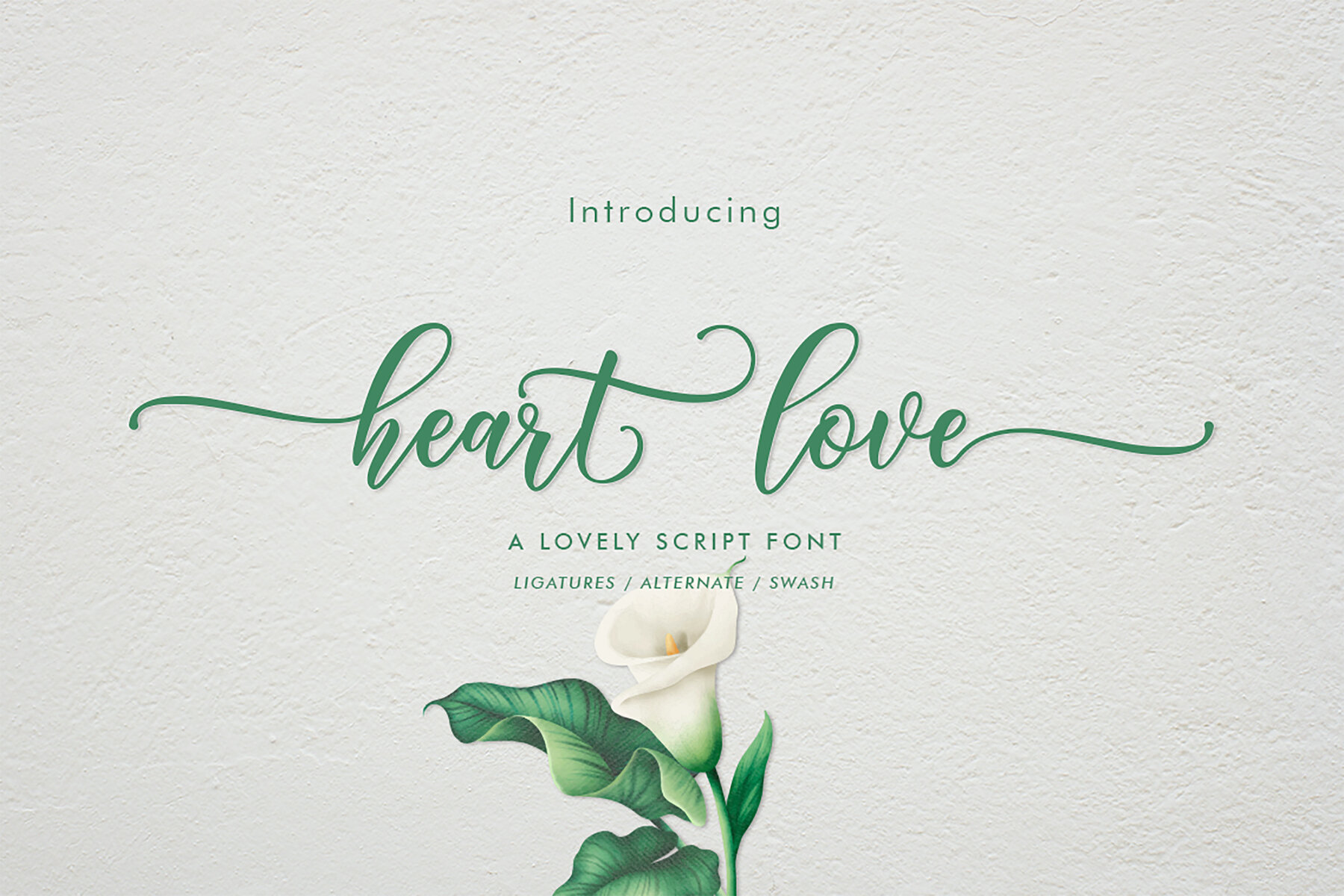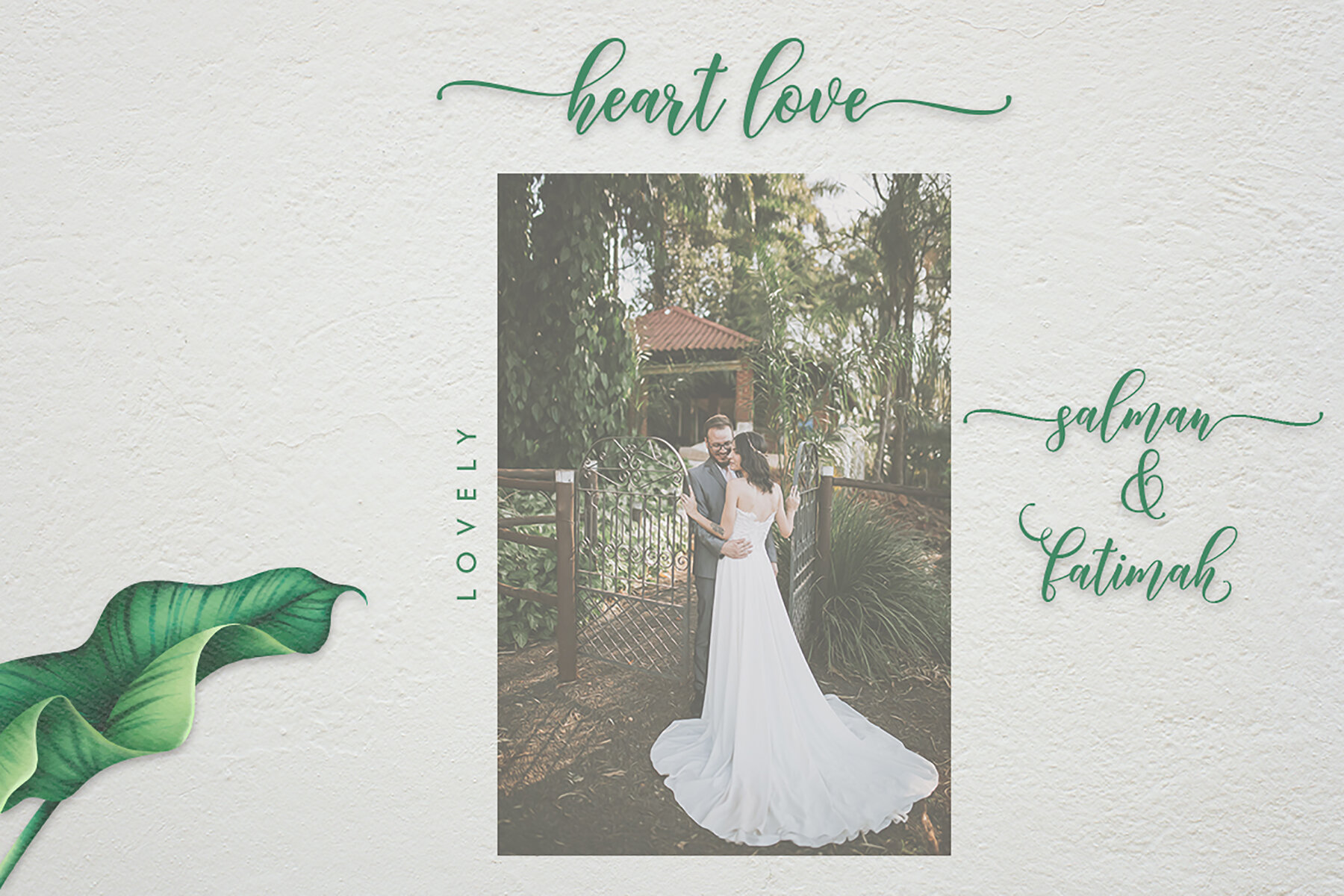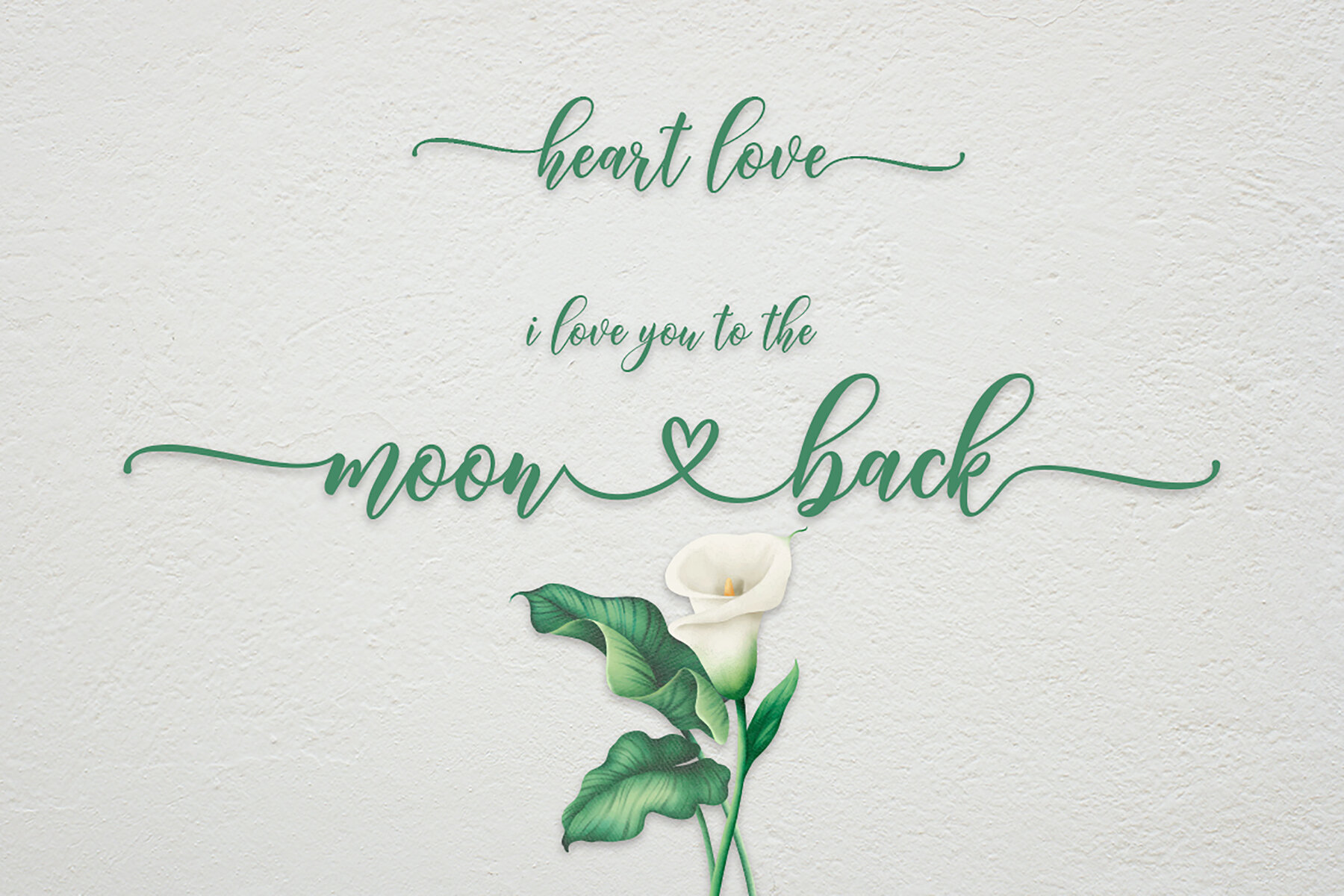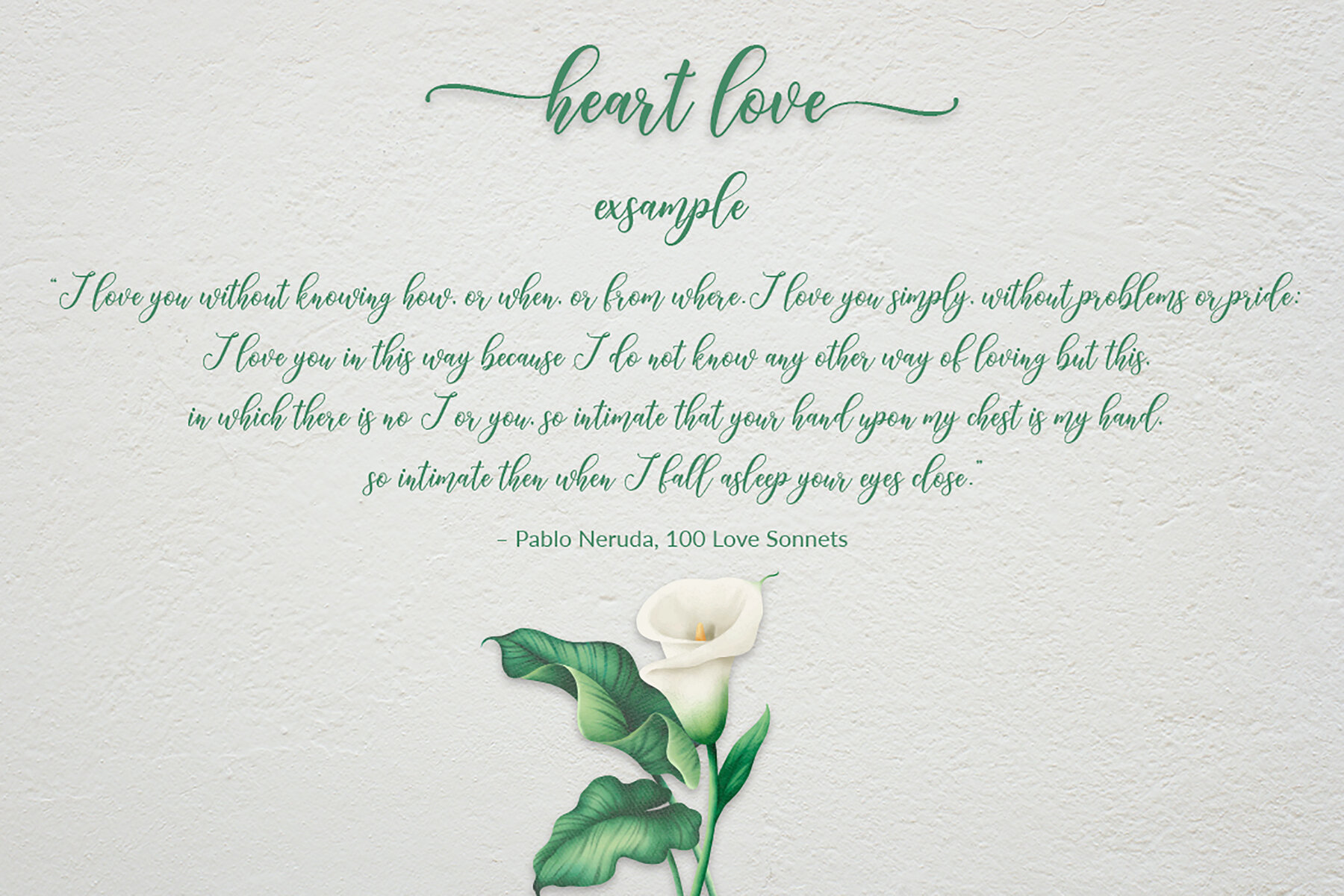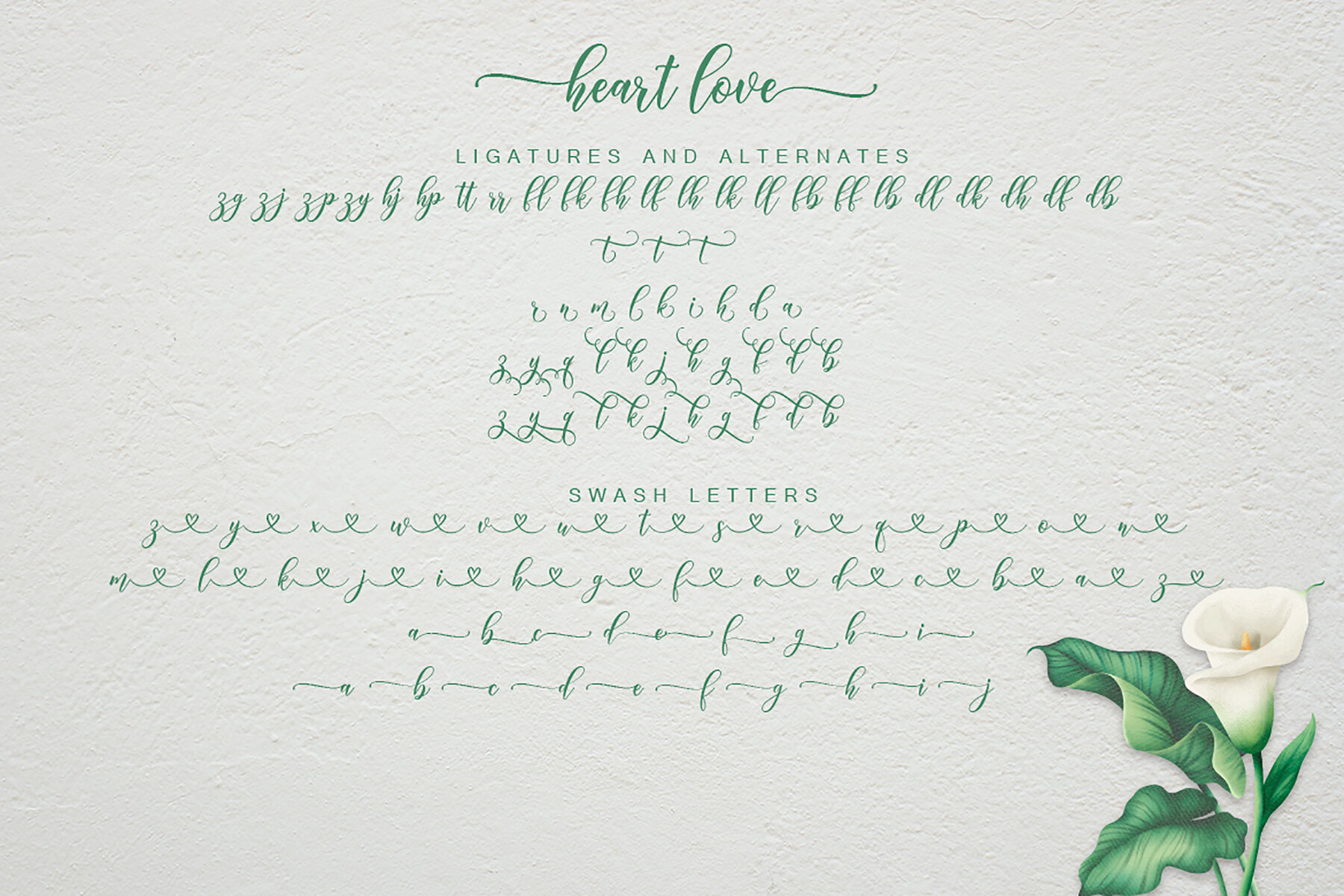
Heart Love Font
Heart love
Heart Love by amar lettering is an evocative script font that features over 320 glyphs. This typeface is designed to bring a personalized touch to each project, thanks to several Open Type features such as Swash, Stylistic Sets, Stylistic Alternates, and Contextual Alternates. Crafted for those who seek creative flexibility, Heart Love ensures every design feels unique and expressive. Open Type features are seamlessly integrated, making them accessible through programs like Adobe Illustrator, Adobe InDesign, and Photoshop, as well as Corel Draw and Microsoft Word. Additionally, the font utilizes PUA Unicode, allowing artisans and designers to effortlessly employ all alternate characters in their creative endeavors.Heart Love: An Expressive Script Typeface